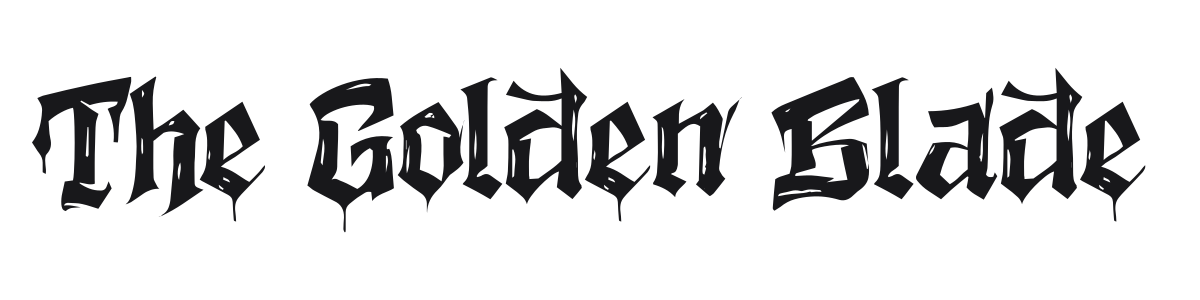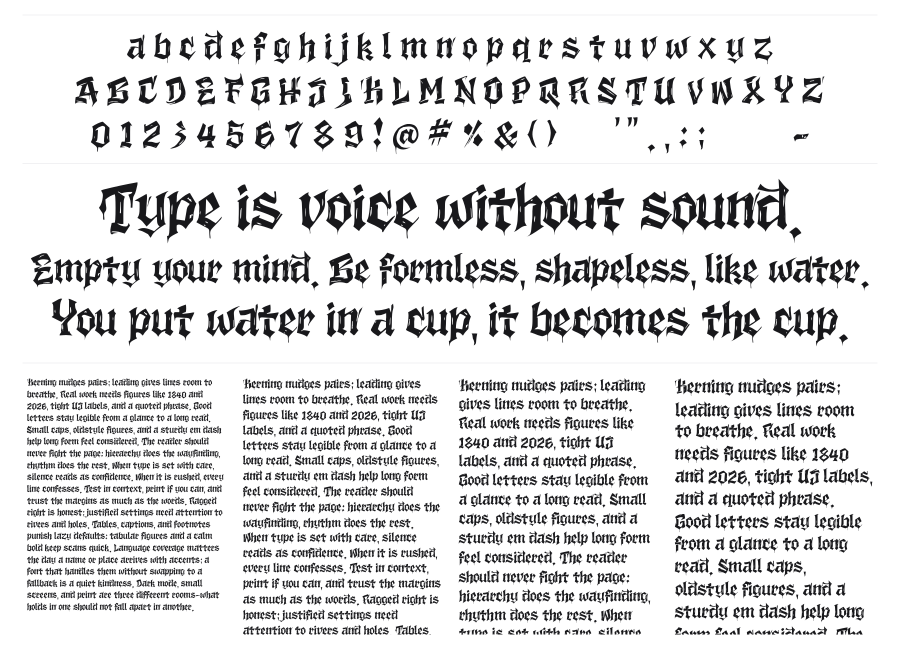
The Golden Blade
The Golden Blade is a heavy gothic blackletter with a dripping, distressed texture that gives it a raw, hand-inked quality. The thick strokes and sharp angular construction draw from medieval type traditions, pushed into darker territory by the rough, eroded edges. Strong character for band logos, horror packaging, streetwear graphics, and anywhere a heavyweight gothic presence is needed.